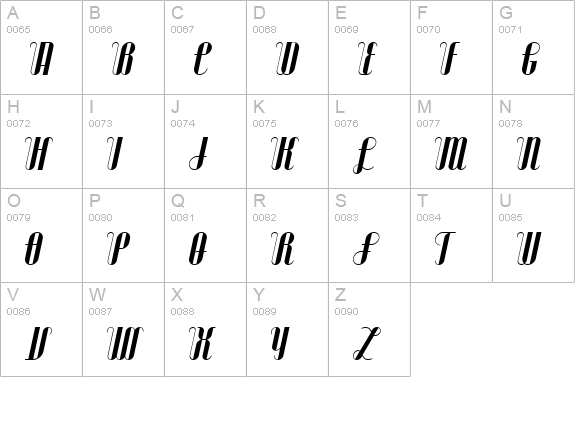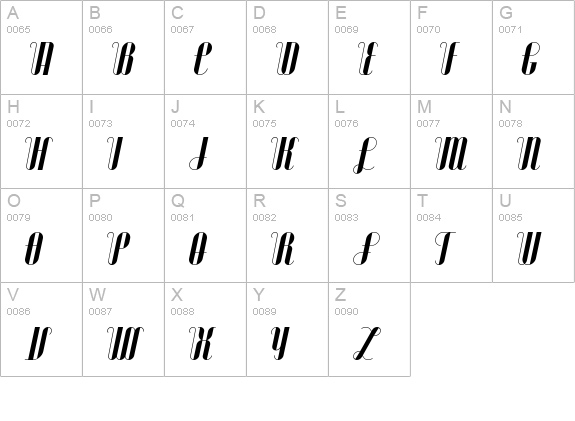
Matinee Idol NF Font Details
Matinee Idol NF font is a charming and stylish typeface that exudes classic Hollywood glamour. With its elegant lines and vintage aesthetics, this font is perfect for adding a touch of old-world charm to your design projects. Whether you're creating posters, invitations, or branding materials, Matinee Idol NF font will bring a touch of sophistication to your work. The best part is that Matinee Idol NF font is available for free download at FontsMarket.com. You can easily access this beautiful font and use it in your projects without any cost. So, why wait? Download Matinee Idol NF font today and elevate your designs with its timeless elegance.